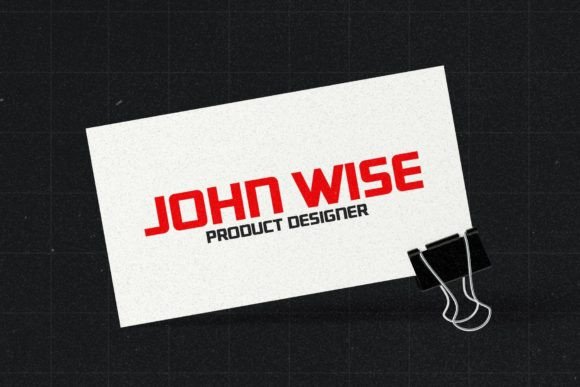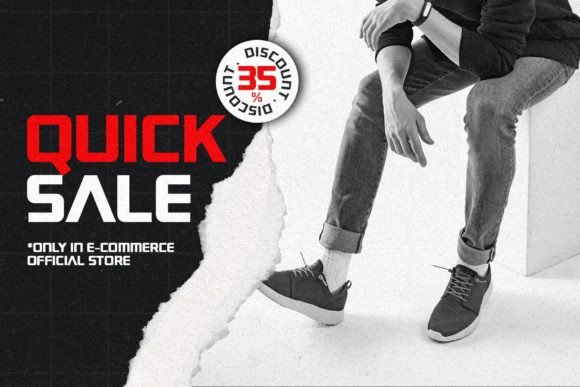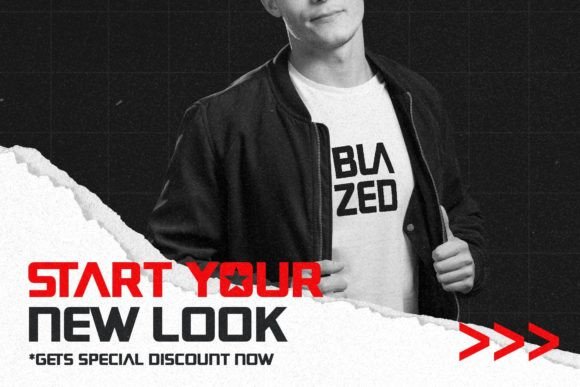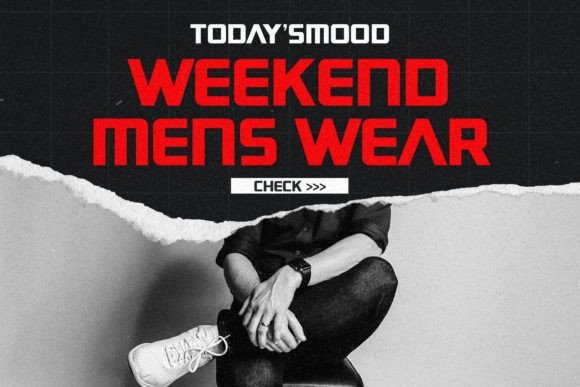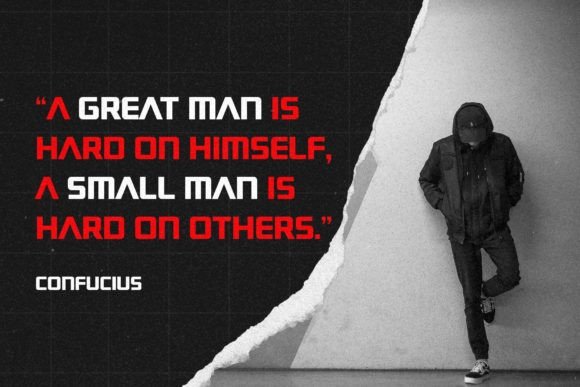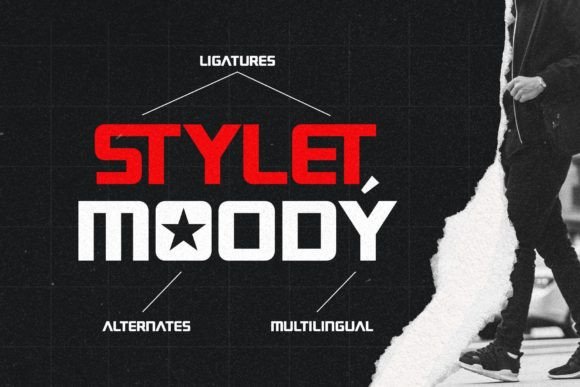
Introducing Canos Font: Elevate Your Designs with a Cool and Modern Display Font
Are you tired of using the same old fonts in your designs? Look no further than Canos Font, a cool and modern display font that’s sure to take your creations to the next level. With its unique and stylish aesthetic, Canos Font is an incredible asset to any designer’s font library, regardless of the topic or project.
The Versatility of Canos Font
One of the standout features of Canos Font is its versatility. Whether you’re working on a branding project, a website design, or a craft project, this font is sure to make a statement. Its modern and sleek design makes it perfect for a wide range of applications, from bold headlines to elegant titles. Canos Font is also highly legible, making it an excellent choice for body text and captions.
What Makes Canos Font So Special?
So, what sets Canos Font apart from other display fonts on the market? Here are just a few of its key features:
- Unique and Stylish Aesthetic: Canos Font has a distinctive and modern look that’s sure to grab attention. Its clean lines, elegant curves, and precise lettering make it a standout in any design.
- Highly Legible: Despite its stylish appearance, Canos Font is also highly legible, making it perfect for use in a variety of contexts, from large headlines to smaller body text.
- Flexible and Adaptable: Canos Font is incredibly versatile, and can be used in a wide range of design applications, from digital projects to print materials.
How to Use Canos Font in Your Designs
Ready to start using Canos Font in your designs? Here are a few tips to get you started:
- Use it as a Headline Font: Canos Font is perfect for use in bold headlines and titles. Its stylish appearance and high legibility make it an excellent choice for grabbing attention and conveying important information.
- Pair it with Other Fonts: Canos Font pairs well with a variety of other fonts, making it easy to create visually appealing and harmonious designs. Try pairing it with a clean sans-serif font for body text, or a decorative script font for added flair.
- Experiment with Different Colors and Textures: Canos Font looks great in a variety of colors and textures. Don’t be afraid to experiment and find the perfect combination to match your brand or design aesthetic.
Why Designers and Crafters Love Canos Font
So, why do designers and crafters love Canos Font? Here are just a few reasons:
- It’s Easy to Use: Canos Font is incredibly easy to use, even for designers who are new to working with display fonts. Its clear and precise lettering makes it simple to read and understand.
- It’s Highly Versatile: Canos Font can be used in a wide range of design applications, from digital projects to print materials. Its flexibility makes it an excellent addition to any designer’s font library.
- It’s Perfect for Branding and Marketing: Canos Font is perfect for use in branding and marketing materials, such as logos, business cards, and brochures. Its stylish appearance and high legibility make it an excellent choice for conveying important information and creating a lasting impression.
In conclusion, Canos Font is a cool and modern display font that’s sure to elevate any design. Its unique and stylish aesthetic, high legibility, and versatility make it an incredible asset to any designer’s font library. Whether you’re working on a branding project, a website design, or a craft project, Canos Font is the perfect choice. So why wait? Download Canos Font today and start taking your designs to the next level!